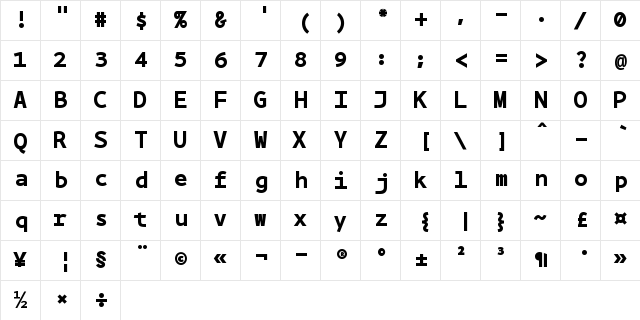
BPmono Bold
| Foundry | George Triantafyllakos |
| Designer | George Triantafyllakos |
Design Context for BPmono Typeface
BPmono brings the precise, column-aligned rhythm of monospaced typography to designs that value technical clarity and systematic order. The heavy weight commands attention and anchors typographic hierarchies.
Pro Tip: Pair BPmono with a proportional sans for UI contexts where code-style labels and regular body copy need to coexist.